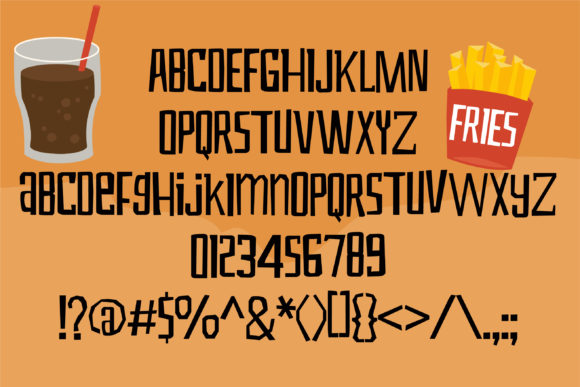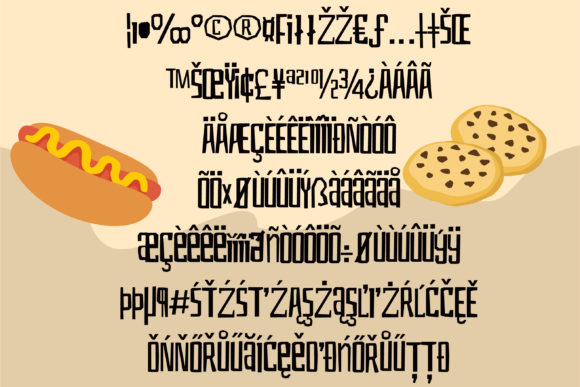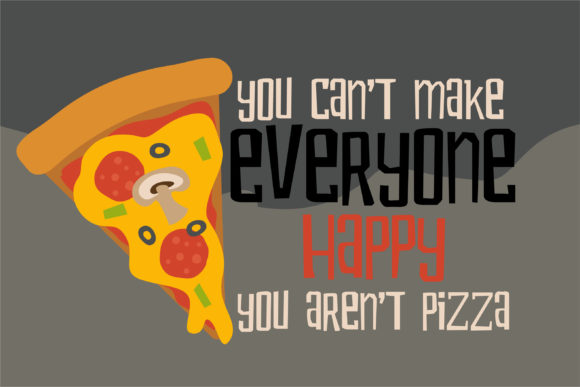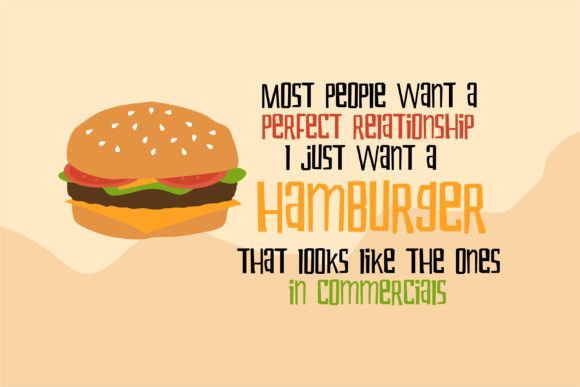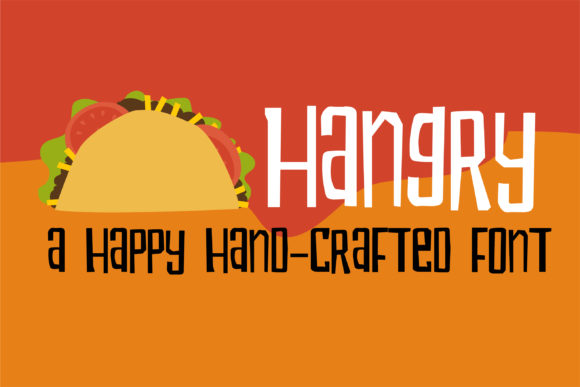
Introducing Hangry Font: The Perfect Casual Handwritten Print for Designers and Crafters
Are you tired of using the same old fonts in your designs? Do you want to add a touch of youthfulness and playfulness to your projects? Look no further than Hangry Font, a casual handwritten print that has a youthful and hand-crafted look to it. In this article, we’ll dive into the world of Hangry Font and explore its features, benefits, and uses.
What is Hangry Font?
Hangry Font is a unique and charming font that is perfect for designers and crafters looking to add a personal touch to their projects. This casual handwritten print has a youthful and hand-crafted look to it, making it ideal for a variety of design applications, from social media graphics to invitations and more.
Features of Hangry Font
So, what makes Hangry Font so special? Here are just a few of its key features:
• Handwritten look: Hangry Font has a genuine handwritten look that is sure to add a touch of personality to your designs.
• Casual and playful: This font is perfect for designers who want to create fun and playful designs that appeal to a younger audience.
• Youthful and energetic: Hangry Font has a youthful and energetic vibe that is sure to make your designs stand out.
• Hand-crafted look: This font has a genuine hand-crafted look that is perfect for crafters and makers who want to add a personal touch to their projects.
Benefits of Using Hangry Font
So, why should you use Hangry Font in your designs? Here are just a few benefits:
• Adds personality to your designs: Hangry Font is a great way to add a touch of personality to your designs and make them stand out from the crowd.
• Perfect for social media graphics: This font is ideal for social media graphics, where you want to grab the attention of your audience and make your content stand out.
• Great for crafters and makers: Hangry Font is perfect for crafters and makers who want to add a personal touch to their projects, from handmade cards to DIY crafts.
• Easy to read: Despite its casual and playful look, Hangry Font is easy to read and understand, making it perfect for designs where you want to communicate a message.
Uses of Hangry Font
So, what can you use Hangry Font for? Here are just a few ideas:
• Social media graphics: Use Hangry Font to create eye-catching social media graphics that grab the attention of your audience.
• Invitations and party decor: This font is perfect for creating invitations and party decor that is fun and playful.
• Handmade cards and gifts: Hangry Font is great for adding a personal touch to handmade cards and gifts.
• DIY crafts and projects: Use this font to add a personal touch to your DIY crafts and projects, from scrapbooking to home decor.
Tips for Using Hangry Font
Here are a few tips for using Hangry Font in your designs:
• Use it with a bold color: Hangry Font looks great with bold and bright colors, so don’t be afraid to experiment with different color combinations.
• Pair it with a simple background: This font looks best with a simple background, so try pairing it with a plain color or texture.
• Experiment with different sizes: Hangry Font looks great in different sizes, so try experimenting with different font sizes to add visual interest to your designs.
In conclusion, Hangry Font is a unique and charming font that is perfect for designers and crafters looking to add a personal touch to their projects. With its casual handwritten print and youthful and hand-crafted look, this font is sure to make your designs stand out. Whether you’re creating social media graphics, invitations, or handmade cards, Hangry Font is a great choice. So why not give it a try and see what amazing designs you can create?